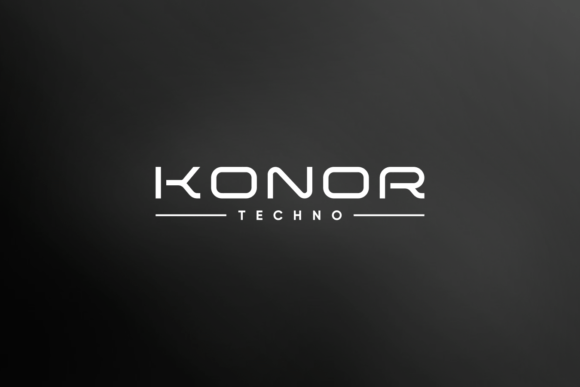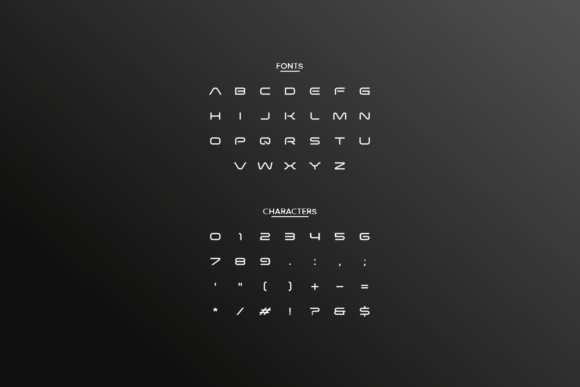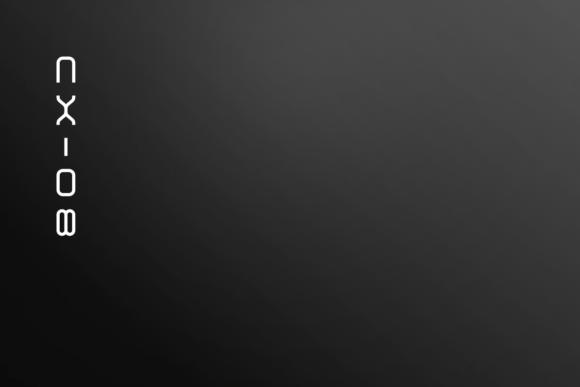
Introduction to Qrokinex Font
Have you ever stared at a blank canvas, waiting for inspiration to strike? For many designers, this moment is a familiar and thrilling experience. It’s the spark that sets off a chain reaction of creativity, leading to innovative projects and breathtaking designs. And for those seeking the perfect font to elevate their work, we’re excited to introduce the Qrokinex Font – a game-changing addition to any design resource.
With its modern, elegant, and futuristic look, the Qrokinex Font is an ideal choice for writing web designs, business cards, or any other project that demands a unique touch. Its sophisticated concept and sleek shape make it a standout on high-quality designs, especially those featuring a transparent background. Whether you’re working on a creative project or simply looking for a stylish font to elevate your brand, the Qrokinex Font is an invaluable resource that’s sure to leave a lasting impression.
Key Features of Qrokinex Font
- High-quality design resource ideal for creative projects, including graphic design and digital art.
- Unique, handcrafted font style with a transparent background, perfect for adding a touch of elegance to your designs.
- Designed with a high-resolution aesthetic, ensuring crisp and clear text display even at larger font sizes.
- Perfect for use in a variety of design contexts, from print materials to digital displays, and everything in between.
- Easy to customize and manipulate, making it a valuable addition to any designer’s toolkit.
Honest Review: Qrokinex Font
As a designer, I’m always on the lookout for high-quality design resources that can elevate my creative projects. The Qrokinex Font caught my eye with its sleek and modern aesthetic.
What works well: ✨ The Qrokinex Font has a clean and minimalist design that makes it perfect for various creative projects, from web design to graphic design. It’s also a free download, which is always a bonus. I appreciate the transparent background, which makes it easy to work with.
Here are some of my favorite features:
- Transparent background for easy editing
- Modern and sleek aesthetic
However, I do have a few limitations to note: ⚠️ The Qrokinex Font is limited to a single weight, which might not be ideal for projects that require multiple font weights. Additionally, the font might not be suitable for very large or small text sizes.
Overall, I’m impressed with the Qrokinex Font. It’s a great addition to any designer’s toolkit, and I appreciate its high-quality design and free download. With a few tweaks, it could be even more versatile and useful.
The Qrokinex Font is a high-quality, free download design resource ideal for creative projects. Its transparent background makes it versatile for various design applications.
Qrokinex Font is suitable for various design projects, including logos, branding materials, and digital graphics.
Pacifico is a beautiful, high-quality font that features a clean and modern design. It’s perfect for creative projects that require a touch of elegance and sophistication. This font is great for logos, branding, and other design elements that need a refined, cursive look.
Pacifico compares to Qrokinex Font in its elegant, cursive style, but it has a more modern and clean appearance. Pacifico is a better choice when you need a font that’s perfect for contemporary designs.